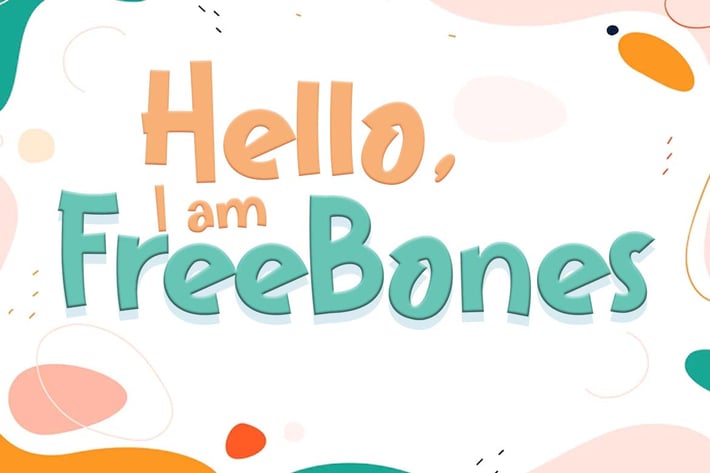
Freebones - Display Font
Introducing Freebones, a funny, bold, and cute cartoon font. Its unique and lovely feel.
So perfect for you who needs a typeface for logo designs, magazine, social media, brochure, and many more.